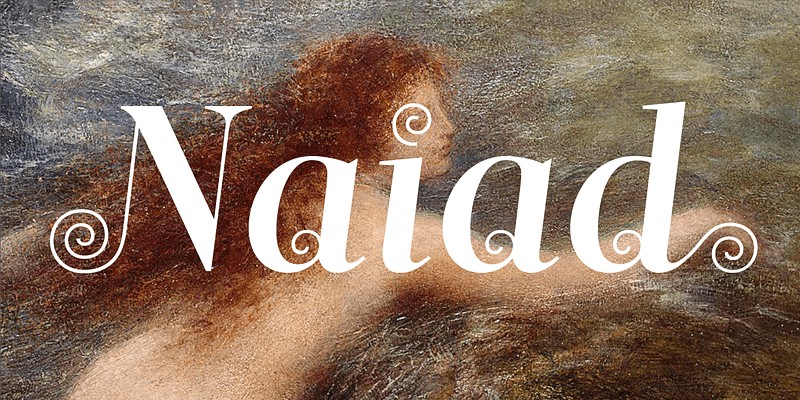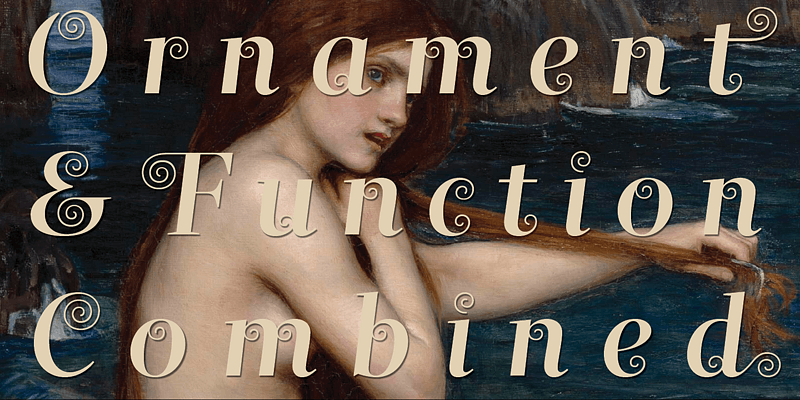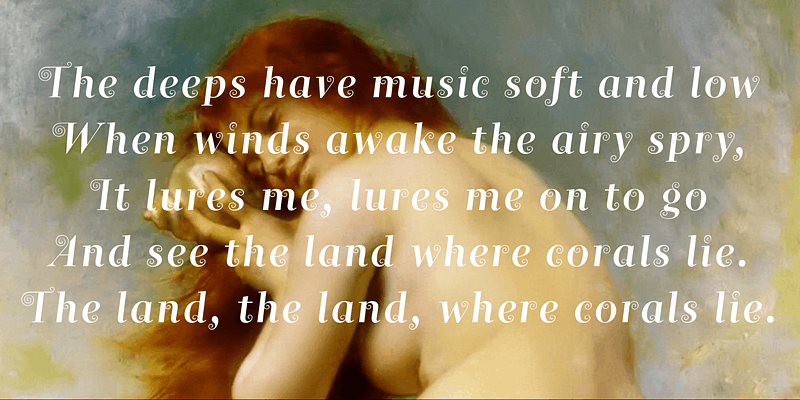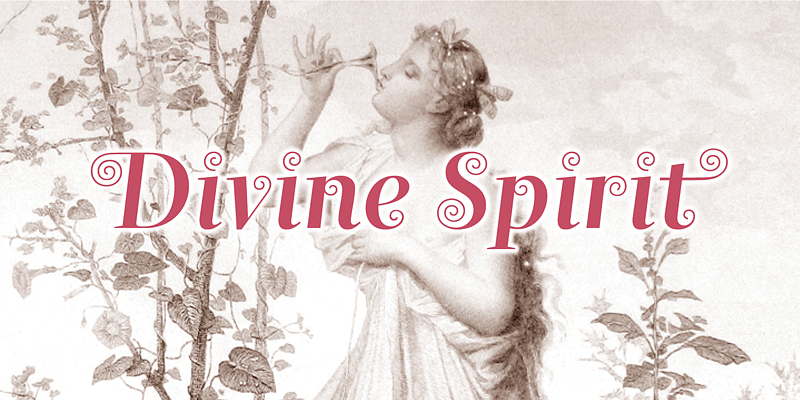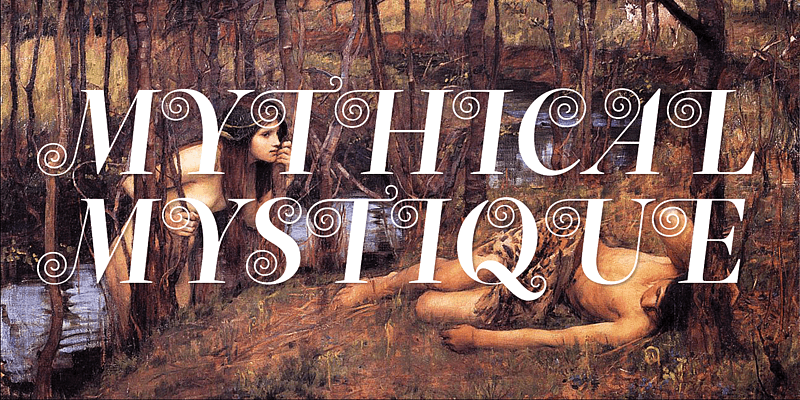
A neoclassical fancy, questioning the convention that decoration is a superficial veneer of style. Here, ornament and function are combined in flourishes integral to the structure of (almost) every glyph. Much Victorian display type had a similar goal, to move beyond ornament as surface and through force of ingenuity embed it into the deep structure of letter forms.